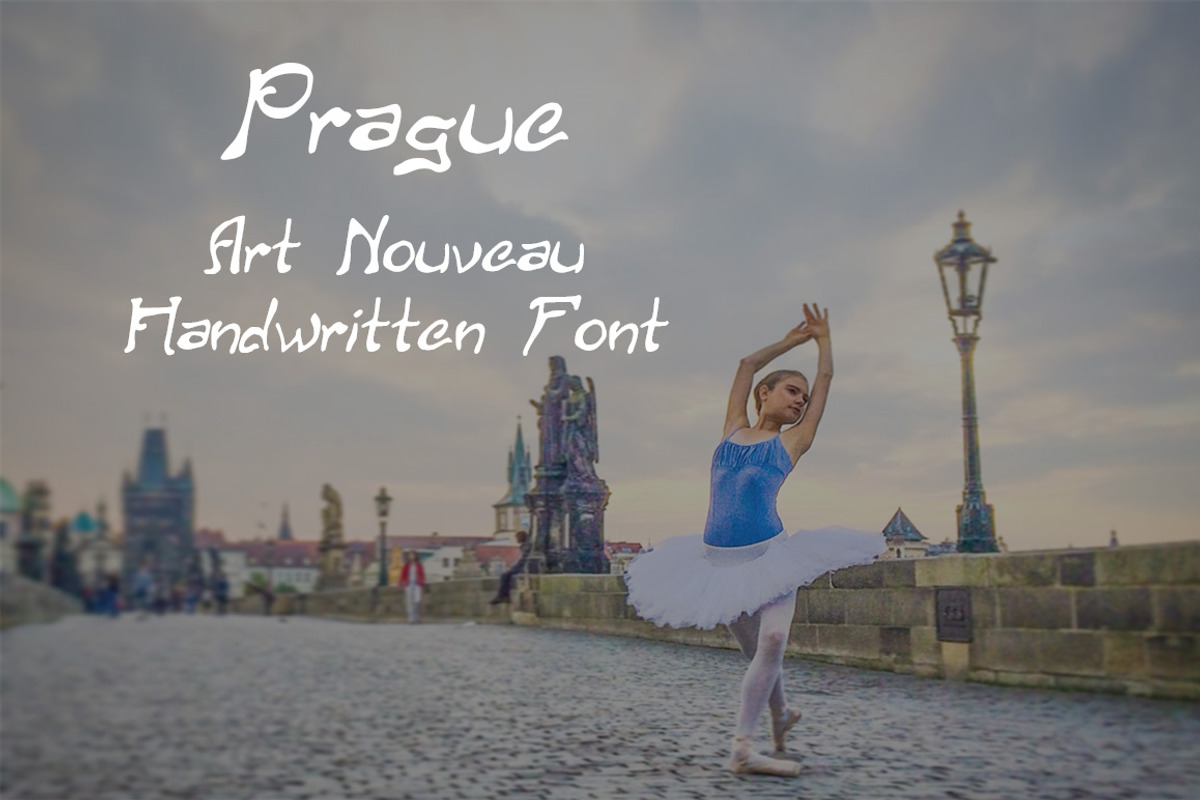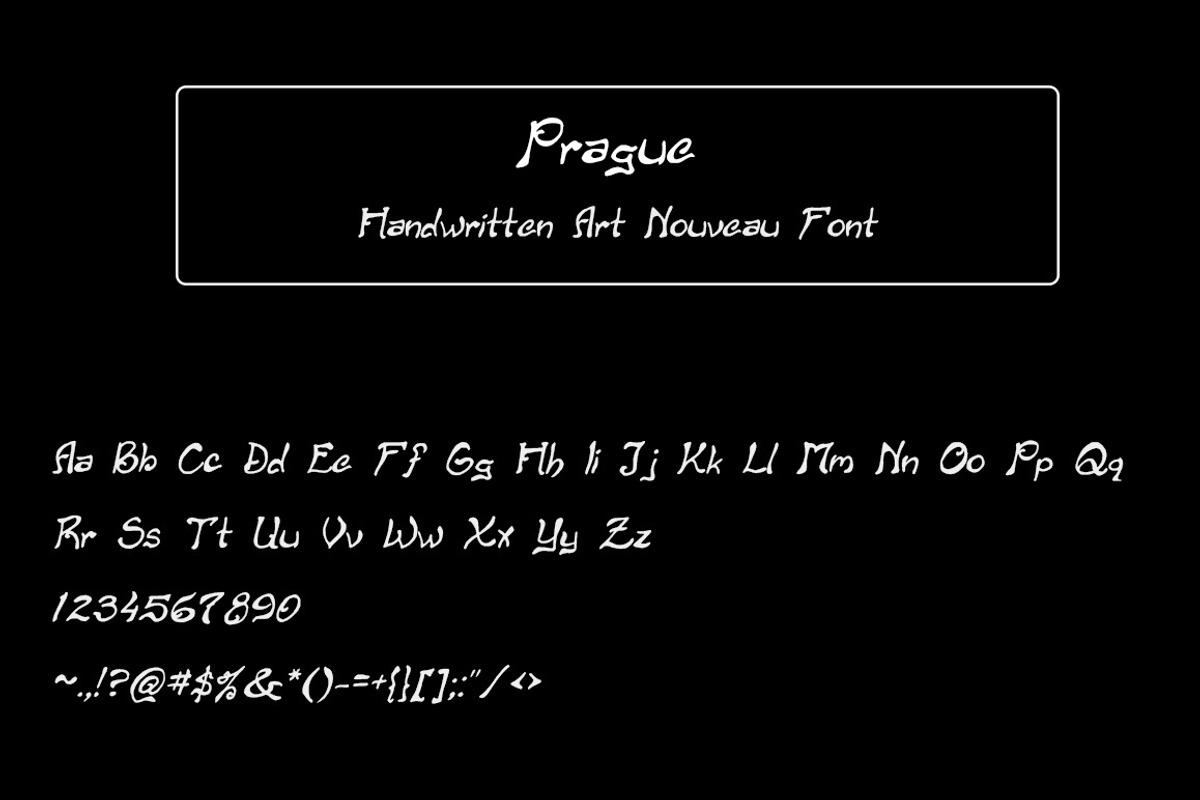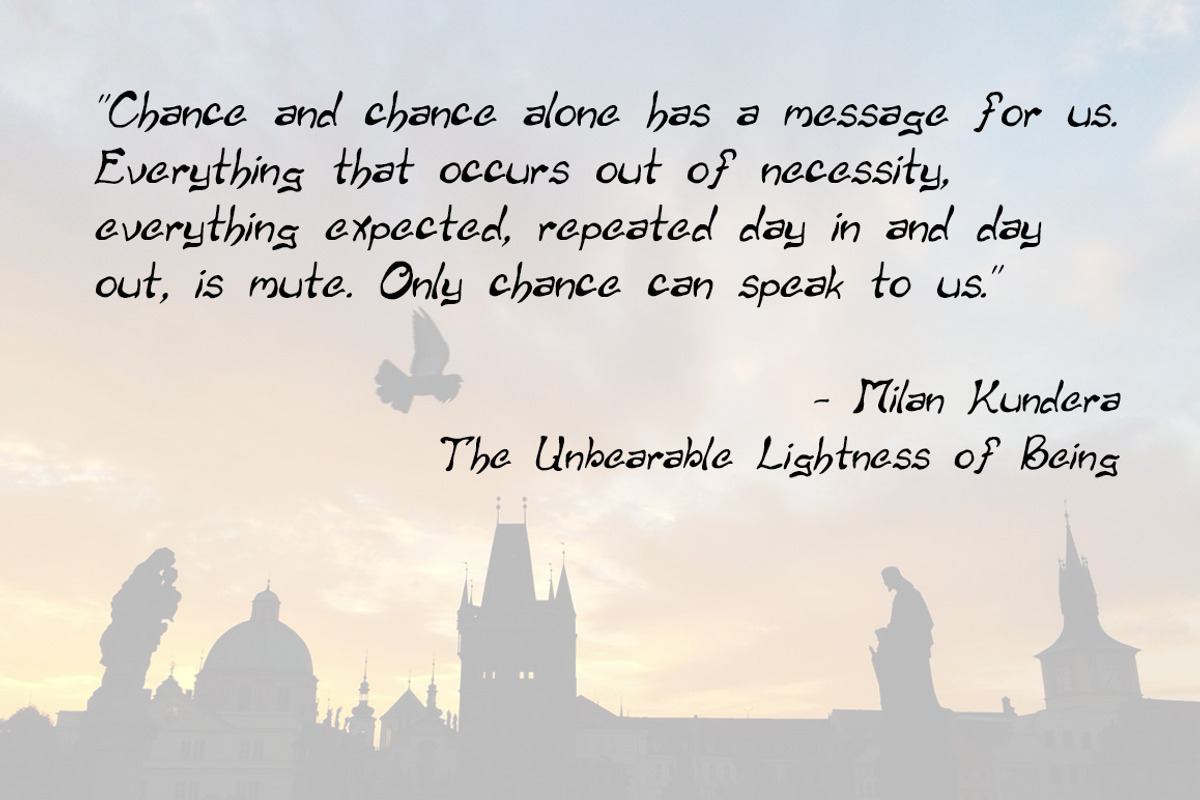
Prague: Handwritten Art Nouveau Font
Prague: Handwritten Art Nouveau Font by amyxbao is a font selected for branding, posters, packaging, typography.
Why Prague: Handwritten Art Nouveau Font is worth a look
Prague: Handwritten Art Nouveau Font by amyxbao fits naturally into Branding, posters, packaging, typography.